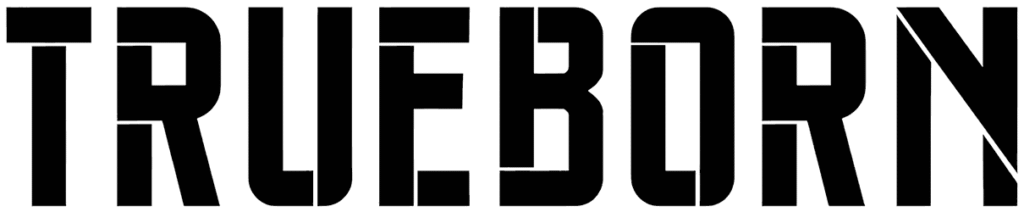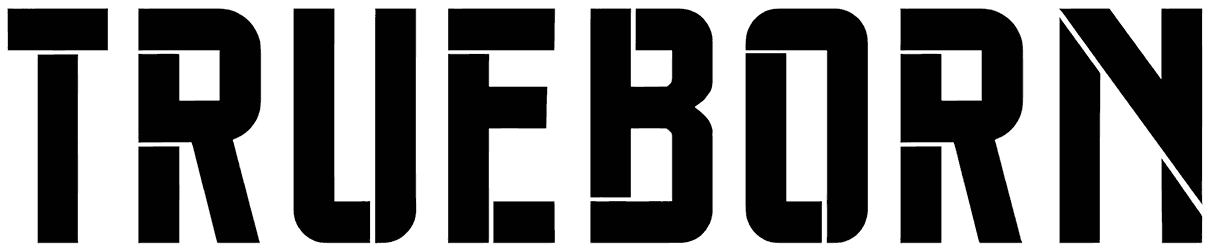
Trueborn Font
Give a futuristic touch to your typography design using this Trueborn font. The bold, strong, and stencil letterform of this T-shirt font makes it a lavish alternative to bring out your next writing project seriously.
Moreover, this gaming font provides four different styles of all caps to pull out all the stops to be striking in many designs of posters, movie titles, product packaging, flyers, branding, etc.